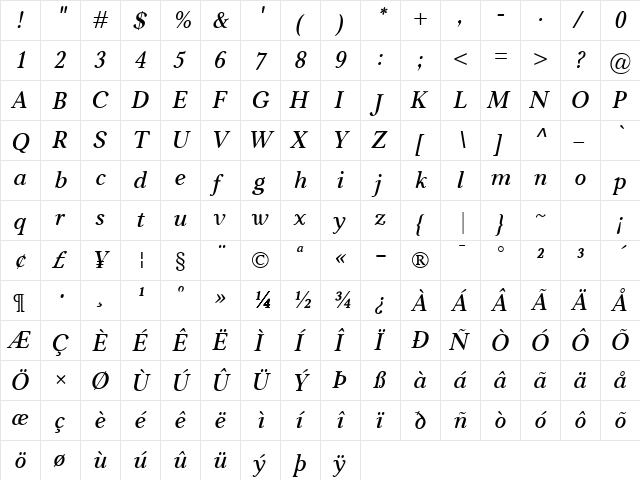
Carniola SemiBold Italic Font Preview
Design Context for Carniola SemiBold Typeface
Carniola SemiBold offers clean, dependable letterforms without strong stylistic allegiance, making it a practical choice for designers who need flexibility. Its italic angle brings a sense of urgency and motion to the letterforms. The heavy weight commands attention and anchors typographic hierarchies.